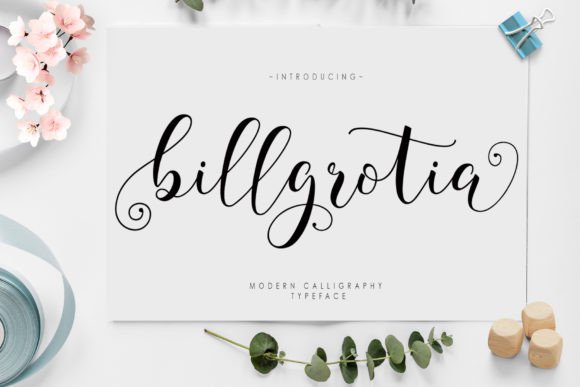
Billgrotia Script: A Beautiful, Versatile Display Font
Billgrotia Script is a stunning display font that brings elegance and sophistication to any design project. With its flowing lines and refined curves, it’s perfect for adding a touch of class to logos, headlines, and creative visuals. Whether you're working on a personal project or a commercial campaign, this script font offers a unique blend of beauty and functionality.
What Makes Billgrotia Script Stand Out?
Billgrotia Script is more than just a pretty font—it’s a carefully crafted typeface designed with both aesthetics and usability in mind. Its visual characteristics include smooth, connected strokes that mimic the look of handwritten lettering, giving it a warm, organic feel. The font features subtle variations in line weight, which add depth and dimension to each character.
The personality of Billgrotia Script is elegant yet approachable. It has a timeless quality that works well in both modern and traditional designs. This makes it ideal for projects that aim to convey professionalism, creativity, or a sense of refinement. Its style is versatile enough to fit into a wide range of design contexts, from editorial layouts to branding materials.
Where Billgrotia Script Shines
This script font excels in a variety of applications. In logo design, it can help create a memorable and distinctive brand identity. For editorial design, it adds a touch of sophistication to headings and subheadings. In packaging design, it can elevate product labels and promotional materials with its stylish appearance.
Billgrotia Script also works well in web design and social media graphics. When used as a headline font, it draws attention without overwhelming the reader. It pairs beautifully with sans serif fonts for a balanced contrast, making it a valuable addition to any designer’s toolkit.
For small business owners and entrepreneurs, this font can enhance marketing materials, such as flyers, brochures, and email newsletters. Its readability at larger sizes ensures that it remains legible while still maintaining its decorative appeal.
How Billgrotia Script Influences Design
When used effectively, Billgrotia Script can significantly impact the overall look and feel of a design. Its visual hierarchy helps guide the viewer’s eye, making it ideal for headlines and key messages. The font’s unique character can also influence brand perception, adding a layer of sophistication that resonates with audiences.
Consistency is key in design, and Billgrotia Script supports this by offering a cohesive look across different design elements. Its ability to maintain clarity and style at various sizes makes it a reliable choice for both print and digital projects. This consistency helps build a stronger brand presence and improves audience recognition.
Choosing the Right Font for Your Project
Selecting the right font involves understanding your project’s needs and goals. Billgrotia Script is best suited for projects that require a decorative, yet readable, font. If your design includes a lot of text, consider pairing it with a simpler font for balance. This approach ensures that the overall layout remains clean and easy to read.
Before finalizing your choice, test the font in different sizes and contexts. Pay attention to how it looks in both digital and print formats. Also, review the included styles—many script fonts come with multiple weights or variations that can be used for different design purposes.
Practical Tips for Using Billgrotia Script
Start by using Billgrotia Script for headlines and titles. Its decorative nature makes it ideal for drawing attention without distracting from the main content. For body text, pair it with a clean, readable font like a sans serif to maintain balance and clarity.
Experiment with font pairings to find what works best for your design. A combination of Billgrotia Script with a modern sans serif can create a striking visual contrast. This pairing is especially effective in web design, where readability is crucial.
Consider the context of your project when deciding how to use the font. For example, in a luxury brand’s packaging, Billgrotia Script can add an air of exclusivity. In a casual blog post, it might be better to use it sparingly to avoid overwhelming the reader.